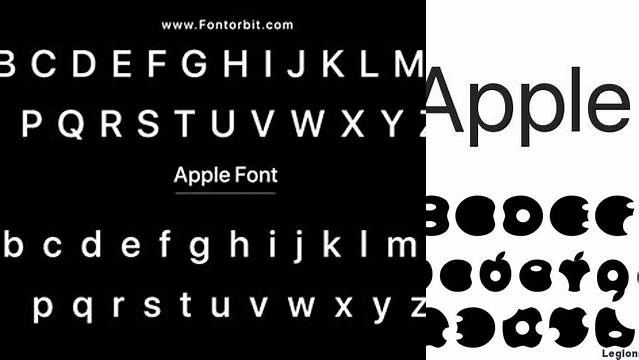
Apple Font TTF: Free Download Guide (Updated 2024)
Hey guys! Are you looking to give your projects that sleek, iconic Apple aesthetic? Well, you've come to the right place. In this comprehensive guide, we'll dive deep into the world of Apple fonts, specifically focusing on how you can find and download them in TTF (TrueType Font) format for free. Whether you're a designer, developer, or just an Apple enthusiast, having the right font can make all the difference. So, let's get started and explore everything you need to know about apple fonts free download ttf!
1. Understanding Apple Fonts
Before we jump into the download process, it's crucial to understand what makes Apple fonts so special. Apple fonts, like San Francisco and SF Pro, are renowned for their clean lines, legibility, and modern feel. They're designed to provide a consistent and pleasing visual experience across all Apple devices, from iPhones to MacBooks. Using these fonts in your own projects can instantly give them a touch of sophistication and professionalism. Understanding the nuances of these fonts helps in appreciating the apple fonts free download ttf process and how to use them effectively.
2. The Appeal of Apple Fonts
So, what exactly is it about Apple fonts that makes them so appealing? Well, a lot of it comes down to their design philosophy. Apple prioritizes clarity and readability, which is evident in their font choices. The San Francisco font, for example, was specifically designed to be highly legible on the small screens of smartwatches, but it also looks fantastic on larger displays. This focus on usability, combined with a clean, minimalist aesthetic, makes Apple fonts incredibly versatile and widely admired. Many designers and developers seek apple fonts free download ttf to replicate this appeal in their own creations, aiming for that polished and professional look that Apple is known for.
4. San Francisco Font: Apple's Signature
Let's talk about San Francisco, arguably Apple's most iconic font. Introduced in 2014, San Francisco was designed to replace Helvetica Neue as the system font across Apple's ecosystem. It's a sans-serif font characterized by its clean, modern lines and excellent legibility. San Francisco comes in several variants, including SF Pro, SF Compact, and SF Mono, each tailored for specific use cases. The SF Pro variant, for instance, is optimized for text-heavy applications, while SF Compact is designed for smaller screens. The quest for apple fonts free download ttf often centers around the San Francisco font family due to its widespread use and distinctive appearance, making it a popular choice for designers and developers aiming to emulate the Apple aesthetic.
5. Exploring SF Pro and Its Variants
SF Pro is the workhorse of the San Francisco font family. It's used extensively across macOS, iOS, and other Apple platforms for user interfaces and body text. SF Pro is designed with a dynamic spacing system that adjusts the letter spacing based on the font size, ensuring optimal readability at any scale. This attention to detail is what sets Apple fonts apart and makes them so effective. The desire to obtain apple fonts free download ttf often stems from the need to use SF Pro in various projects, as its professional and clean design enhances the overall look and feel. Understanding the nuances of SF Pro and its variants is crucial for anyone looking to incorporate Apple's design language into their work.
6. SF Compact and Its Use Cases
SF Compact is another important member of the San Francisco family. As the name suggests, it's a more condensed version of SF Pro, designed to fit more text into a smaller space. This makes it ideal for use on devices like the Apple Watch, where screen real estate is limited. Despite its compact design, SF Compact maintains excellent legibility, ensuring that text remains clear and readable even at small sizes. For projects that require a space-saving yet readable font, the search for apple fonts free download ttf often leads to SF Compact. Its specific design for smaller screens makes it a valuable asset in various design scenarios, especially in mobile and wearable applications.
7. SF Mono: The Code-Friendly Font
For developers and programmers, SF Mono is a godsend. This monospaced font ensures that each character occupies the same amount of horizontal space, making code easier to read and debug. SF Mono is used extensively in Apple's Xcode development environment, and it's a popular choice for coding editors and terminals. The monospaced nature of SF Mono greatly enhances the readability of code, which is crucial for productivity. The demand for apple fonts free download ttf specifically for SF Mono reflects its importance in the coding and development community. Its clean and consistent appearance helps in reducing errors and improving the overall coding experience.
8. Legality of Downloading Apple Fonts for Free
Okay, let's address the elephant in the room: the legality of downloading Apple fonts for free. Apple's fonts are proprietary, which means they're owned by Apple and licensed for use on their devices and software. Distributing these fonts without permission is a violation of copyright law. However, there are some legitimate ways to access Apple fonts for free, which we'll discuss in the following sections. It's crucial to be aware of copyright restrictions when searching for apple fonts free download ttf. Always ensure that you are obtaining fonts from a legitimate source to avoid legal issues. Understanding the licensing terms associated with Apple fonts is essential for responsible usage.
9. Official Apple Resources for Fonts
Apple provides some resources for developers and designers to access their fonts. The primary resource is the Apple Developer website, where you can download the San Francisco font family for use in creating apps for Apple platforms. While this doesn't give you a blanket license to use the fonts in any project, it's a great starting point for developing iOS, macOS, watchOS, and tvOS applications. When seeking apple fonts free download ttf options, checking official Apple resources is the safest and most reliable approach. These resources often provide the latest versions of the fonts and ensure compliance with Apple's licensing terms.